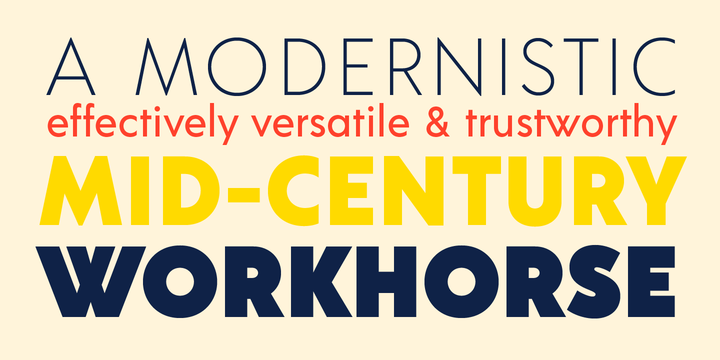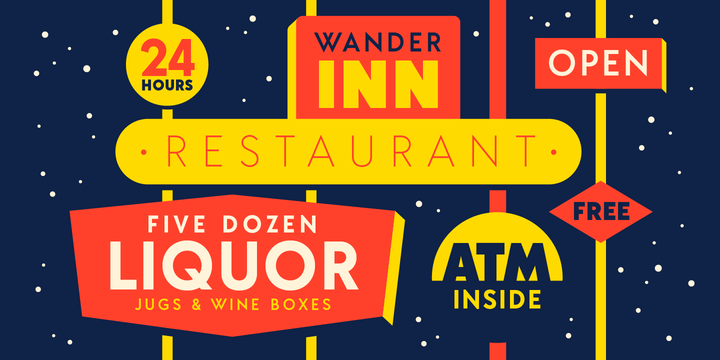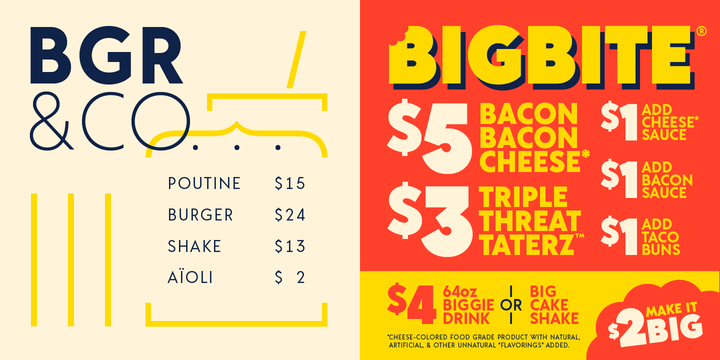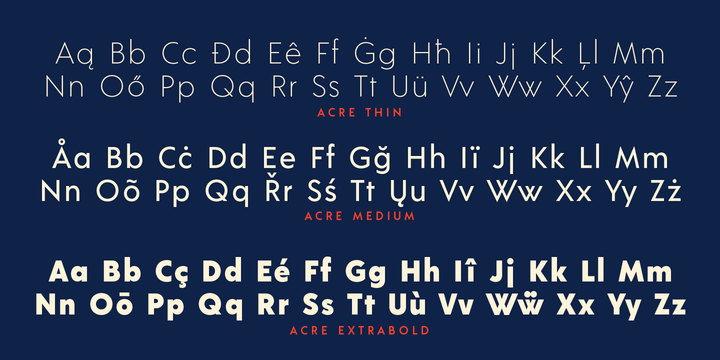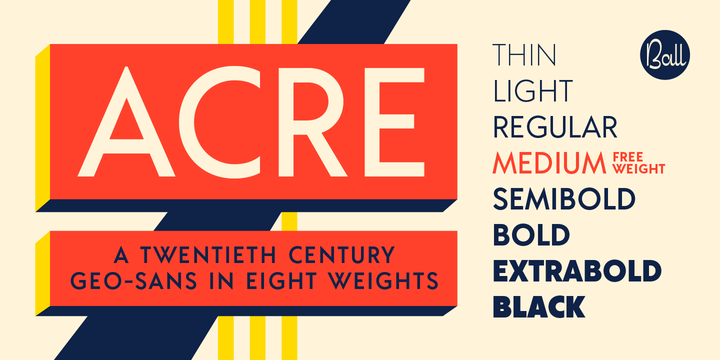
Acre Font Family
Acre is a geometric sans-serif type family of eight weights that’s both inspired by and named after my great grandfather, Tex Acre. Tex was an artist and sign maker whose handcrafted signs illuminated the roadsides of the American Midwest and typified mid-century Americana. Acre is a tribute to him, his work, and many of my favorite early 20th century geometric typefaces. With eight weights ranging from Thin to Black, Acre is an extremely versatile family that can be used for display, text, or anything in between. Acre offers full European language support plus many OpenType features such as tabular and oldstyle figures.